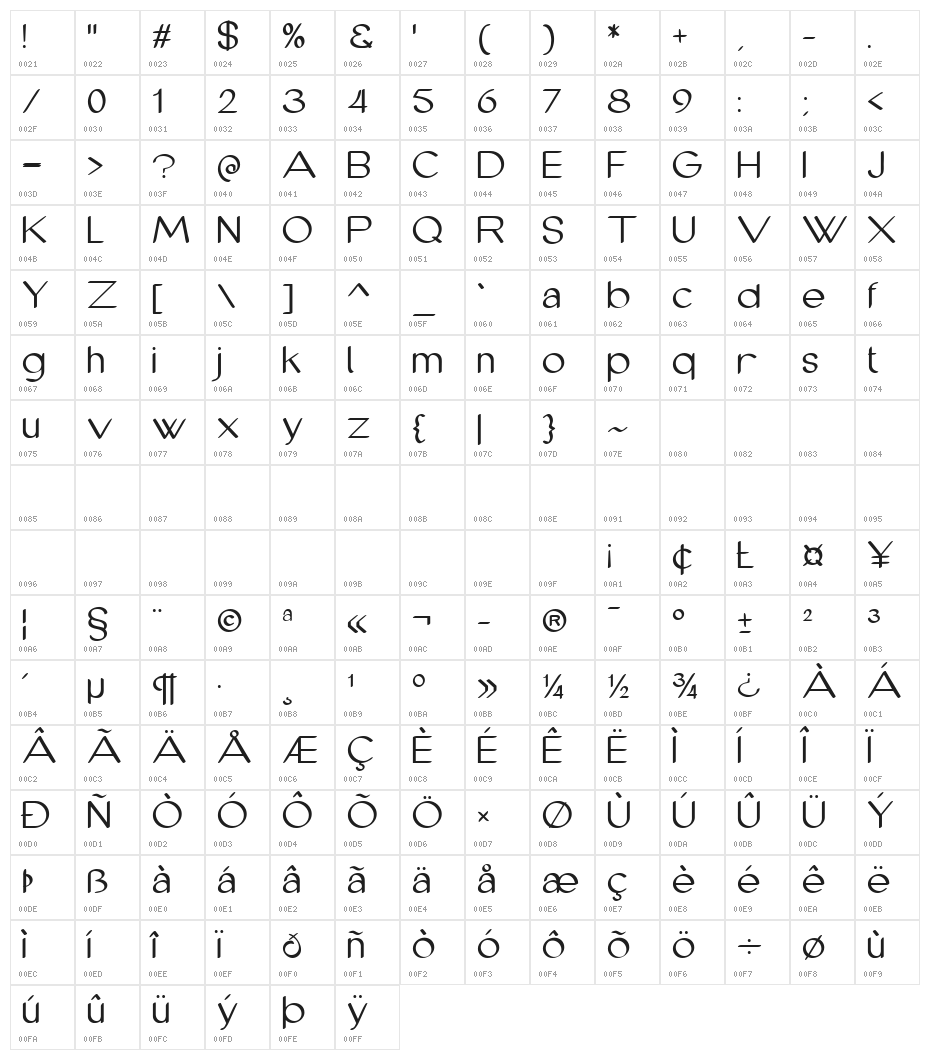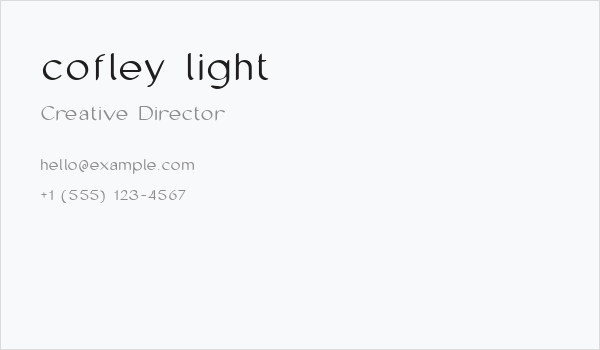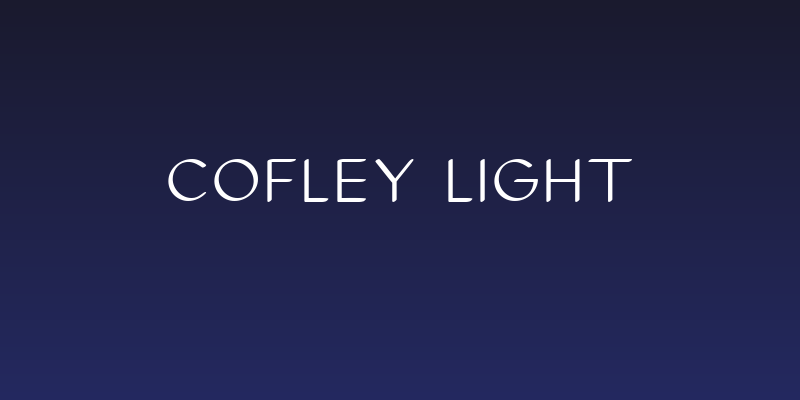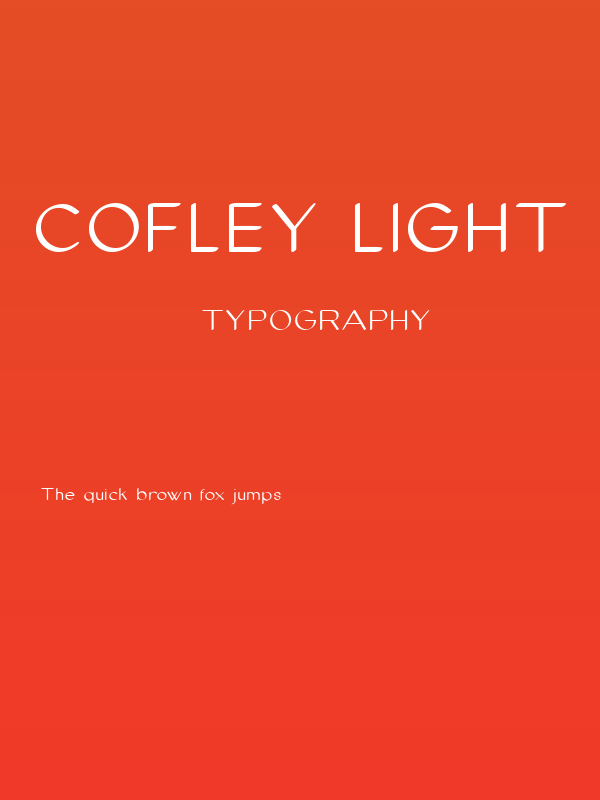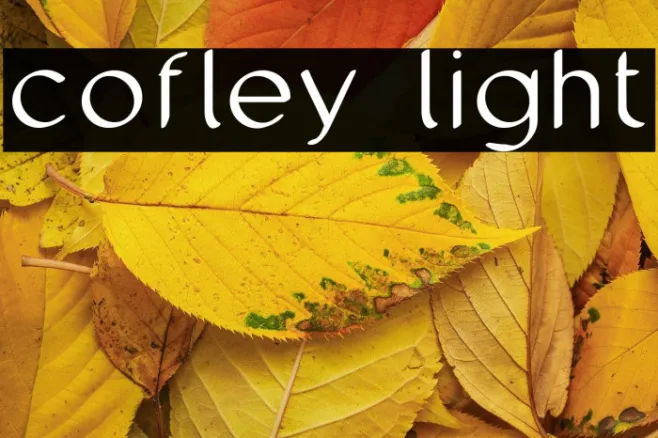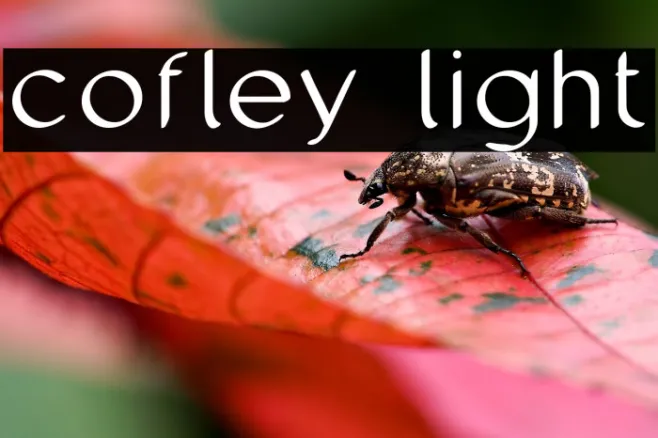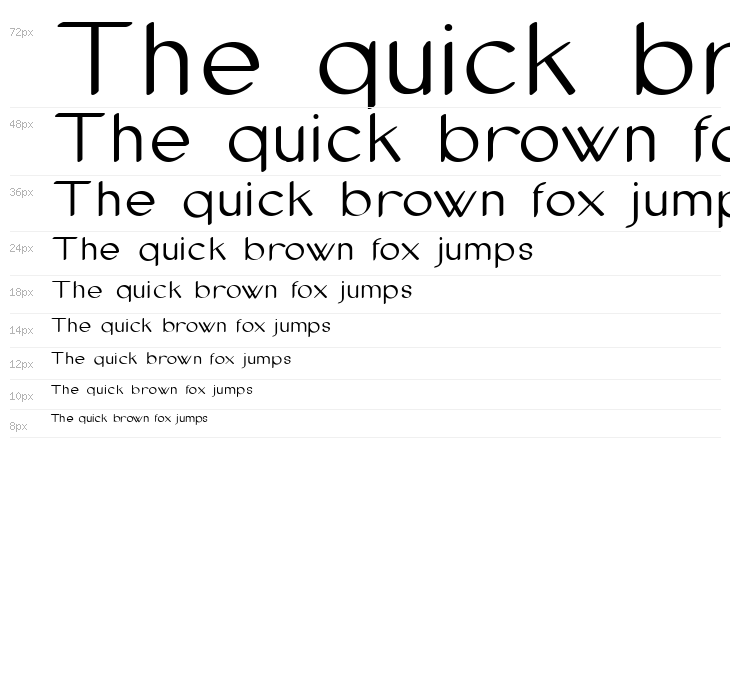
cofley light Font
cofley light Description
This font exhibits a clean and modern aesthetic with a geometric sans-serif style. The characters are well-balanced with a consistent stroke width, providing a harmonious and legible appearance. The uppercase letters are slightly taller than the lowercase, maintaining a uniform height that enhances readability. The numerals are distinct and align well with the overall design, while the special characters are crafted to match the font's sleek and contemporary look. The font's simplicity and elegance make it versatile for various applications, offering a professional yet approachable feel.
| Proposed Projects | Ideal for branding, web design, corporate materials, and editorial layouts. |